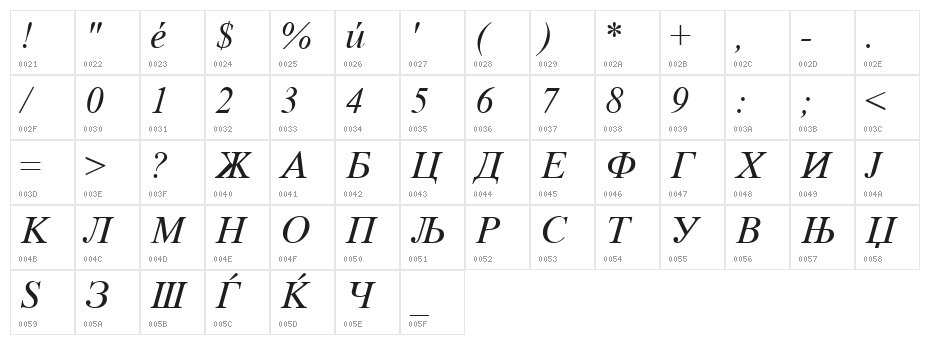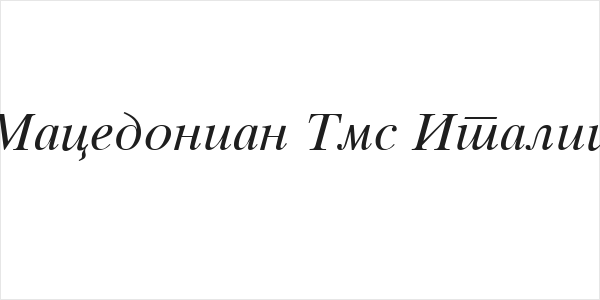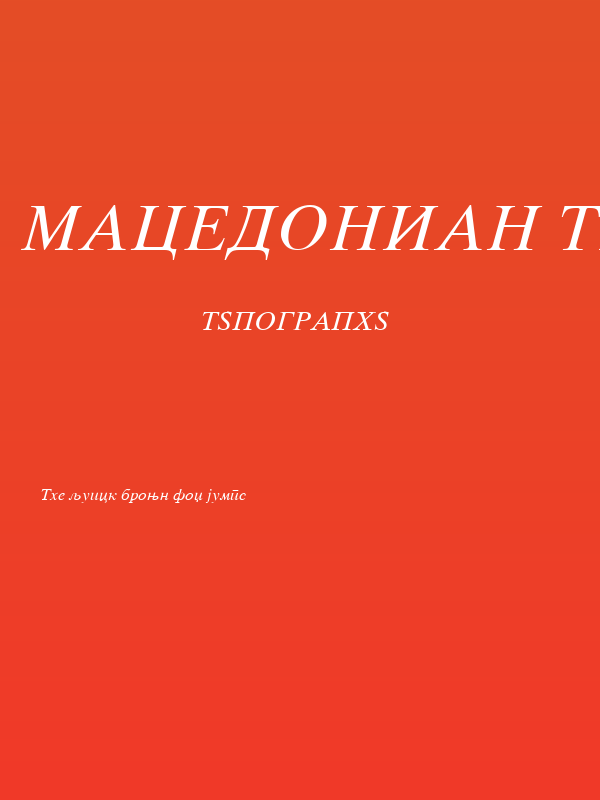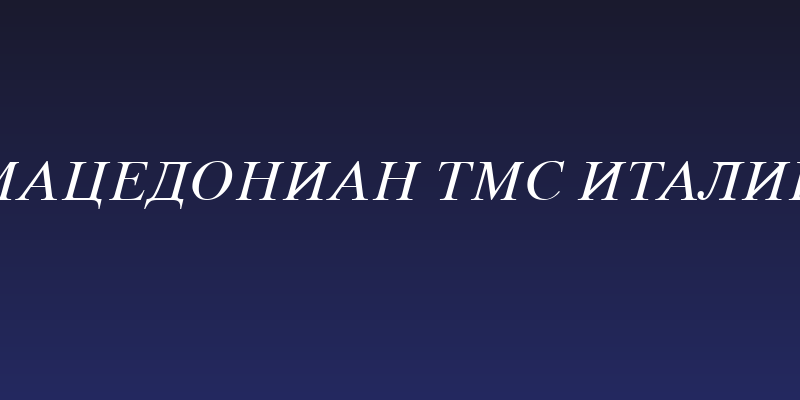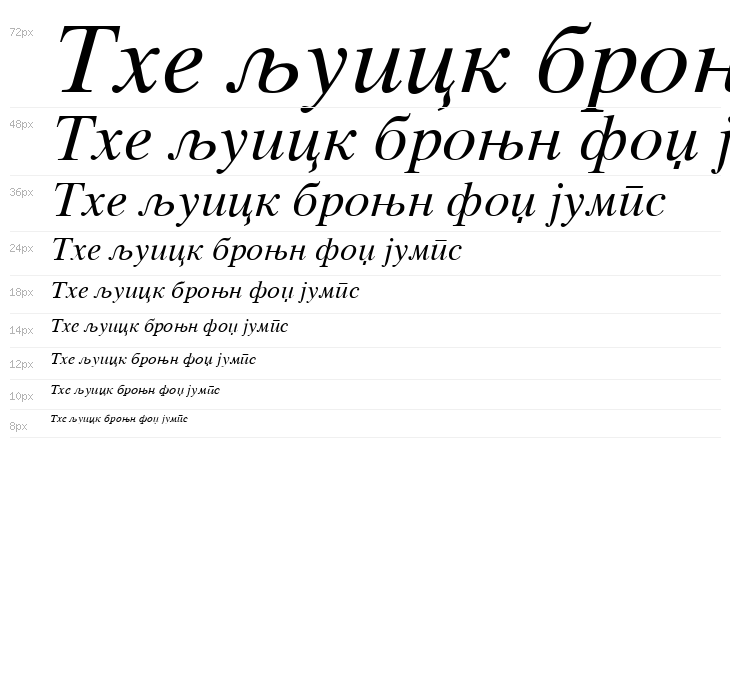
Macedonian Tms Italic Font
Macedonian Tms Italic Description
This font features a classic serif style with a distinct italic slant, giving it an elegant and sophisticated appearance. The characters are well-defined with moderate contrast between thick and thin strokes, enhancing readability while maintaining a stylish look. The uppercase letters are bold and commanding, while the lowercase letters are more delicate, providing a nice balance. The numerals are clear and consistent, making them easy to distinguish. Special characters are included, adding versatility to the font's applications. The overall design is timeless, suitable for a variety of formal and professional uses.